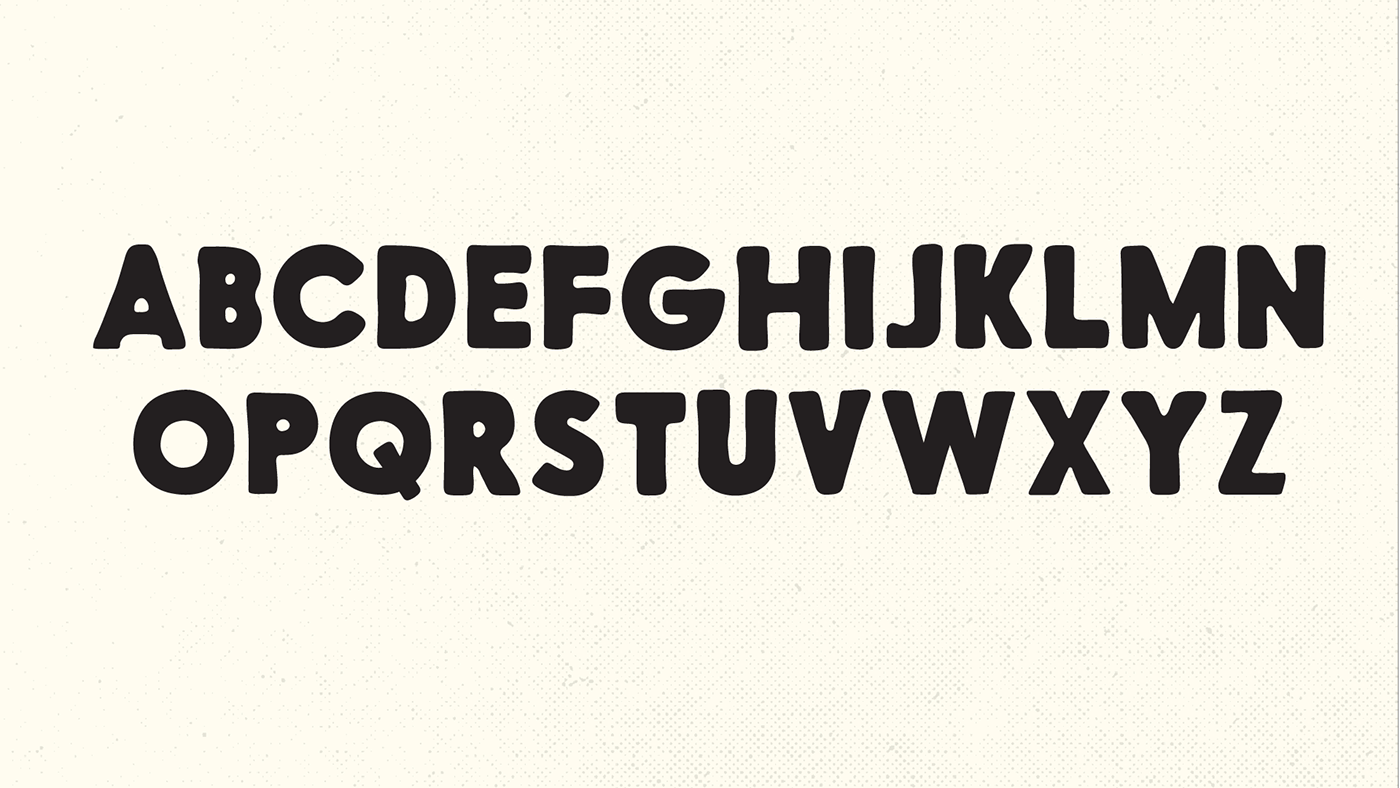
I was looking at an old magazine from 1957 where the typeset was rough with lots of ink-slip and wondered if it would make a good distressed version of the classic Futura font. I scanned the pages and assembled the font by choosing the letters that split the difference between distressed and idiosyncratic. I’m surprised the results turned out so well!
This one’s just uppercase, numbers, and punctuation. I considered making a bunch of extra versions or small caps, but I’m not sure it really makes enough of a difference. If you do end up needing something, drop me a line and I’ll add it to future versions.